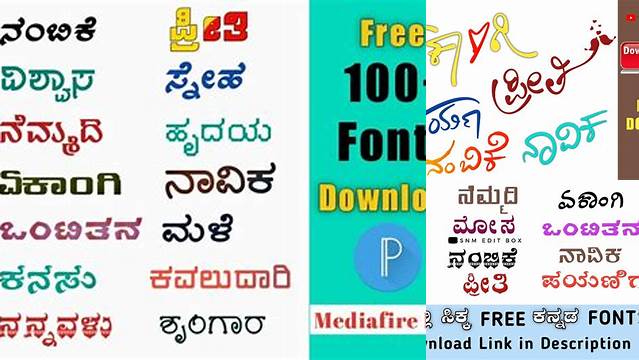
Kannada Fonts: Styles, Online Resources & Usage Tips
Introduction to Kannada Fonts
Hey guys! Ever wondered about the beautiful and intricate Kannada script and how it's used in fonts online? Well, you're in the right place! Kannada, a Dravidian language spoken predominantly in the state of Karnataka, India, boasts a rich literary and cultural heritage. The elegance of the Kannada script makes it a favorite for various design purposes, from traditional prints to modern digital media. Understanding the nuances of Kannada fonts is crucial for anyone looking to engage with Kannada-speaking audiences or simply appreciate the aesthetic appeal of the language. This article will delve deep into the world of Kannada fonts available online, exploring different styles, where to find them, and how to use them effectively. We’ll cover everything from the basics of Kannada typography to the latest trends in font design, ensuring you have all the information you need. Whether you’re a designer, a student, or just a font enthusiast, this guide will provide valuable insights into the fascinating world of Kannada fonts. So, let’s dive in and explore the artistic and functional aspects of these fonts, making your digital creations stand out with the grace and beauty of Kannada script. Remember, the right font can make all the difference in conveying your message effectively and aesthetically. Kannada fonts are not just about letters; they are about culture, heritage, and communication. Embrace the opportunity to learn and use them wisely!
The Importance of Kannada Typography
Kannada typography plays a vital role in preserving and promoting the language and culture. Good typography ensures that the script is legible and aesthetically pleasing, making it easier for readers to engage with the content. In the digital age, where visual communication is paramount, the choice of font can significantly impact the user experience. Imagine reading a beautifully written Kannada novel online, but the font is clunky and difficult to read – it detracts from the entire experience, right? Therefore, selecting the right Kannada font is not just about aesthetics; it’s about ensuring readability, cultural relevance, and effective communication. Think of it like choosing the right outfit for an occasion – you want something that looks good but also fits the purpose. Similarly, a well-chosen Kannada font enhances the content and makes it more accessible to the target audience. Moreover, with the increasing use of digital platforms, having a wide variety of Kannada fonts available online allows creators to experiment with different styles and express their creativity. This diversity in font styles helps to keep the language vibrant and relevant in contemporary contexts. Whether it's for websites, mobile apps, or print media, the right Kannada font can elevate the overall design and make a lasting impression. So, let’s explore the options and find the perfect font for your next project!
Key Characteristics of Kannada Script
To truly appreciate Kannada fonts, it’s essential to understand the key characteristics of the Kannada script itself. The script is derived from the Brahmi script and is closely related to other South Indian scripts like Telugu. It’s an abugida, meaning each consonant has an inherent vowel sound, which can be modified by adding vowel signs. This makes the script both complex and beautiful. The rounded shapes and flowing lines are distinctive features of Kannada, giving it a unique aesthetic appeal. Understanding these characteristics helps designers and users choose fonts that accurately represent the script's inherent beauty and readability. For instance, some fonts may emphasize the curves and loops, while others might opt for a more modern, streamlined look. Knowing the nuances of the script allows you to select fonts that not only look good but also maintain the integrity of the language. Think of it as understanding the brushstrokes of a painting – each stroke contributes to the overall artwork. Similarly, each character in the Kannada script has its own unique form and contributes to the overall beauty of the text. Furthermore, the conjunct consonants (ottaksharas) and vowel diacritics add another layer of complexity and richness to the script, making it a visual treat. So, when you’re choosing a Kannada font, consider how well it captures these intricate details and reflects the essence of the language.
Exploring Different Styles of Kannada Fonts
Alright, let's dive into the exciting world of Kannada font styles! Just like any other language, Kannada has a variety of font styles to suit different purposes and aesthetics. From traditional styles that evoke a sense of heritage to modern, sleek designs, there’s a Kannada font for every project. Exploring these different styles can help you find the perfect font to match your needs, whether you’re designing a website, creating a poster, or writing a document. Each style brings its own unique flavor to the text, influencing the overall tone and impact of your message. Imagine choosing a formal, serif font for a wedding invitation versus a playful, sans-serif font for a children’s book – the font sets the mood. Kannada fonts are no different. Understanding the nuances of each style will empower you to make informed choices and create visually stunning and effective designs. So, let's embark on this font-astic journey and discover the diverse landscape of Kannada typography!
Traditional Kannada Fonts
Traditional Kannada fonts often reflect the classic calligraphy and handwritten styles that have been used for centuries. These fonts tend to have a more ornate and detailed appearance, reminiscent of ancient manuscripts and inscriptions. Using traditional fonts can evoke a sense of history and cultural richness, making them ideal for projects that aim to connect with the past. Think of them as the historical attire of the font world – elegant, timeless, and steeped in tradition. These fonts often feature intricate curves and embellishments, giving them a distinctive and sophisticated look. They are perfect for projects such as religious texts, historical documents, or cultural events where a touch of heritage is desired. However, it's important to note that traditional fonts can sometimes be less legible on screens, especially at smaller sizes. Therefore, they are often best used for headings, titles, or short passages where the visual impact is more important than extensive readability. When selecting a traditional Kannada font, consider the overall tone and message you want to convey. Do you want to evoke a sense of grandeur, reverence, or nostalgia? The right traditional font can help you achieve that. So, explore the classic styles and bring a touch of history to your designs!
Modern Kannada Fonts
In contrast to traditional styles, modern Kannada fonts offer a sleek, contemporary look. These fonts often feature cleaner lines and simpler shapes, making them highly legible and suitable for digital platforms. Modern fonts are designed to meet the demands of contemporary design, where readability and visual appeal are paramount. Think of them as the contemporary fashion of the font world – stylish, functional, and designed for modern living. These fonts are perfect for websites, mobile apps, and other digital media where clarity is essential. They often strike a balance between elegance and simplicity, making them versatile for a wide range of applications. Whether you're designing a user interface, creating marketing materials, or writing blog posts, modern Kannada fonts can help you communicate your message effectively. One of the key advantages of modern fonts is their readability at various sizes, making them ideal for both headings and body text. They also tend to work well in different contexts, from formal to informal. When choosing a modern Kannada font, consider the overall aesthetic you want to achieve. Do you want a font that is minimalist and understated, or one that is bold and impactful? The right modern font can elevate your design and make it stand out in today's digital landscape. So, embrace the contemporary styles and bring a fresh, modern touch to your Kannada typography!
Calligraphic Kannada Fonts
Calligraphic Kannada fonts beautifully mimic the fluidity and artistry of hand-lettering. These fonts capture the essence of traditional calligraphy, adding a touch of elegance and personality to your designs. Calligraphic fonts are perfect for projects that require a human touch, such as invitations, greeting cards, or branding materials. Think of them as the handwritten notes of the font world – personal, expressive, and full of character. These fonts often feature flowing strokes and varying line thicknesses, giving them a natural and organic feel. They are ideal for creating a sense of warmth and sophistication. However, like traditional fonts, calligraphic fonts can sometimes be less legible at smaller sizes or in large blocks of text. Therefore, they are often best used for headings, logos, or short phrases where the visual impact is more important than extensive readability. When selecting a calligraphic Kannada font, consider the specific mood and style you want to convey. Do you want a font that is delicate and refined, or one that is bold and expressive? The right calligraphic font can transform your design and make it truly unique. So, explore the artistic styles and add a touch of personality to your Kannada typography!
Where to Find Kannada Style Fonts Online
Okay, guys, now that we've explored the different styles of Kannada fonts, let's talk about where you can actually find them online! The internet is a treasure trove of fonts, but it can be overwhelming to sift through all the options. Knowing where to look can save you time and ensure you find high-quality fonts that meet your needs. There are several excellent resources available, ranging from free font repositories to premium font foundries. Each option has its own pros and cons, so it's important to consider your budget, project requirements, and licensing needs. Whether you're looking for a free font for a personal project or a premium font for a professional design, there's a resource out there for you. We'll explore some of the best places to find Kannada fonts, giving you the information you need to make informed choices. So, let's embark on this font-finding adventure and discover the best resources for Kannada typography!
Free Font Repositories
Free font repositories are a fantastic resource for finding a wide variety of Kannada fonts without breaking the bank. These websites offer fonts that are either free for personal use or even for commercial projects, making them a great option for students, hobbyists, and designers on a budget. Using free font repositories can save you money, but it's important to pay attention to the licensing terms. Some fonts may have restrictions on how you can use them, so always read the fine print. Think of free font repositories as the community libraries of the font world – accessible, diverse, and full of hidden gems. However, just like with any free resource, the quality and selection can vary. Some free fonts may be well-designed and highly functional, while others may have limitations or design flaws. Therefore, it's essential to preview the fonts carefully and test them in your projects before committing to them. Popular free font repositories include Google Fonts, Font Squirrel, and DaFont. These websites offer a wide range of Kannada fonts, from traditional styles to modern designs. When searching for free fonts, consider factors such as readability, character support, and overall aesthetic. Also, be sure to check for updates and new releases, as font designers are constantly adding to their collections. So, explore the free font repositories and discover the wealth of Kannada typography available at your fingertips!
Premium Font Foundries
For professional designers and businesses, premium font foundries offer a wide selection of high-quality Kannada fonts with robust features and excellent support. These foundries invest in the creation of meticulously crafted fonts that meet the highest standards of design and functionality. Choosing premium fonts ensures that you have access to fonts that are not only visually appealing but also technically sound, with comprehensive character sets, ligatures, and other advanced typographic features. Think of premium font foundries as the couture houses of the font world – exclusive, sophisticated, and dedicated to craftsmanship. While premium fonts come with a price tag, the investment can be well worth it for projects where quality and branding are paramount. These fonts often offer better readability, kerning, and overall design than free fonts, making them ideal for professional publications, websites, and marketing materials. Premium font foundries also typically provide excellent customer support, helping you with any questions or issues you may encounter. Popular premium font foundries that offer Kannada fonts include well-known names like Typejockeys, Rosetta Type, and local Indian foundries specializing in Indic scripts. When selecting a premium font, consider factors such as the font's versatility, character support, and licensing terms. Be sure to choose a font that aligns with your brand's identity and communicates your message effectively. So, explore the world of premium font foundries and elevate your Kannada typography to the next level!
So, guys, we've reached the end of our Kannada fonts journey! We've explored the beauty and diversity of Kannada typography, from traditional styles to modern designs. We've discussed where to find these fonts online, both in free repositories and premium font foundries. And we've shared tips for using Kannada fonts effectively, ensuring readability, choosing the right font for the context, and creating visual hierarchy. Understanding Kannada fonts is essential for anyone working with the Kannada language, whether you're a designer, a student, or a content creator. The right font can make all the difference in conveying your message effectively and aesthetically. Remember, typography is not just about choosing pretty letters; it's about communication, culture, and connection. By understanding the nuances of Kannada script and the various font styles available, you can create designs that are both visually stunning and culturally relevant. So, go forth and explore the world of Kannada fonts, and let your creativity flow! Embrace the beauty of the Kannada script and use it to create meaningful and impactful designs. Happy font hunting!